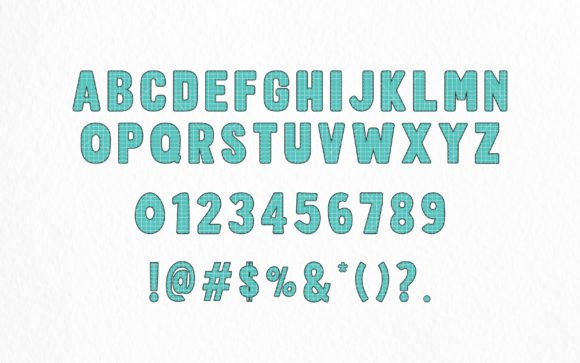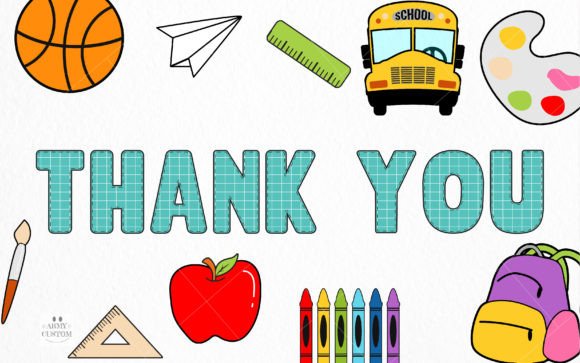
Introducing Cutting Mat Army Font: The Ultimate Color Font for Creative Projects
Are you looking for a font that can add a touch of creativity and uniqueness to your projects? Look no further than Cutting Mat Army Font! This cool and useful color font is perfect for designers, crafters, and artists who want to make an impact with their work. In this article, we’ll explore the features and benefits of Cutting Mat Army Font, and how you can use it to take your creative projects to the next level.
What is Cutting Mat Army Font?
Cutting Mat Army Font is a specially designed color font that can be used for a wide range of creative projects. Its unique design and color scheme make it perfect for arts and crafts, scrapbooking, stationery, cards, party invitations, blog banners and backgrounds, wall art, and all your products. The font comes in two versions: a black version and a color version.
Features of Cutting Mat Army Font
- Unique Color Design: The color version of Cutting Mat Army Font is a stunning addition to any project. Its vibrant colors and unique design make it stand out from other fonts.
- Versatility: Cutting Mat Army Font can be used for a wide range of projects, from arts and crafts to digital designs.
Benefits of Using Cutting Mat Army Font
So why should you use Cutting Mat Army Font for your creative projects? Here are just a few benefits:
- Adds a Touch of Creativity: Cutting Mat Army Font adds a unique and creative touch to any project.
- Saves Time: The font is easy to use and saves time, allowing you to focus on other aspects of your project.
- Versatile: The font can be used for a wide range of projects, making it a great addition to your font library.
Cutting Mat Army Font is a cool and useful color font that can add a touch of creativity and uniqueness to your projects. With its unique design and color scheme, it’s perfect for designers, crafters, and artists who want to make an impact with their work. Whether you’re working on arts and crafts, scrapbooking, stationery, cards, party invitations, blog banners and backgrounds, wall art, or all your products, Cutting Mat Army Font is the perfect choice. So why wait? Download Cutting Mat Army Font today and take your creative projects to the next level!